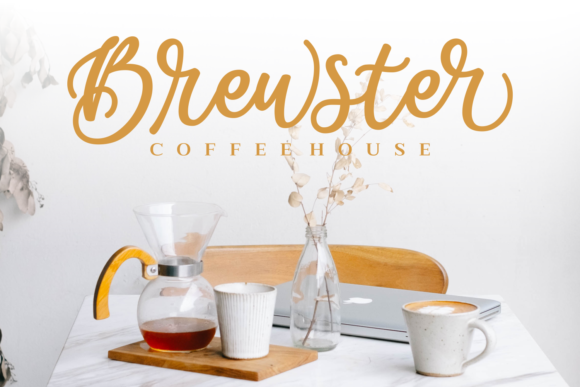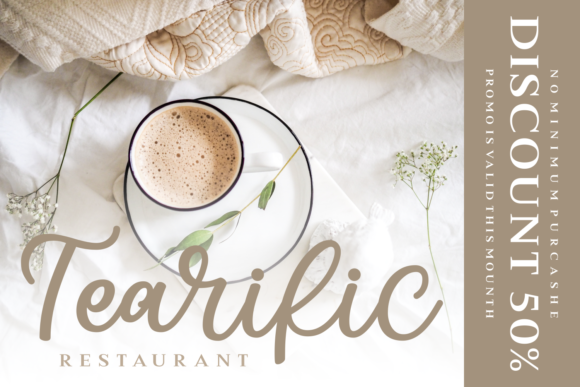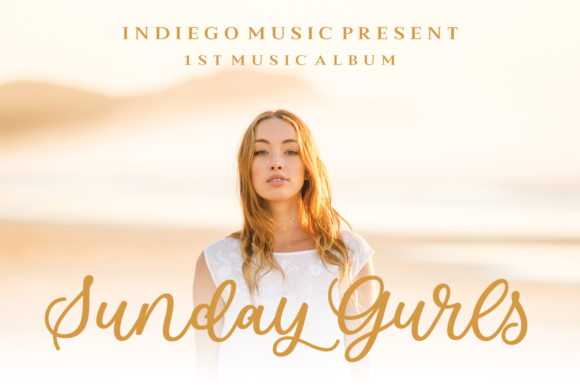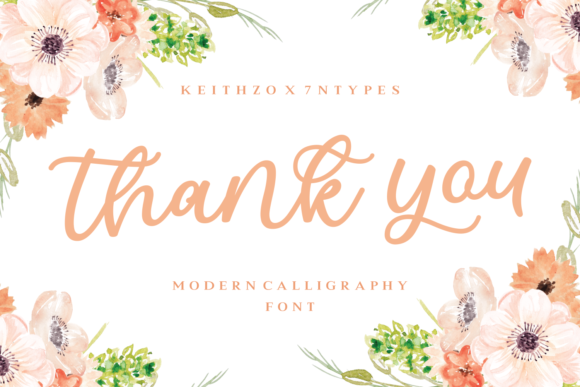
The Elegance of Gibran Font: A Modern Calligraphy Marvel
In the realm of typography, few fonts manage to strike a balance between elegance and readability. The Gibran Font, a modern calligraphy marvel, achieves this delicate balance with finesse. Its beautifully crafted letters exude an air of sophistication while maintaining a high level of legibility. This makes it an ideal choice for designers and crafters looking to add a touch of refinement to their projects.
The Characteristics of Gibran Font
The Gibran Font is characterized by its fluid, cursive script that lends itself well to a variety of design applications. Its letters are meticulously designed to ensure that they are easily readable, even at smaller sizes. This is no small feat, as many calligraphy fonts struggle with legibility due to their intricate and ornate designs.
One of the standout features of the Gibran Font is its beautiful swashes. These decorative flourishes add a feminine yet striking touch to any design. Swashes are a hallmark of calligraphy fonts, and the Gibran Font does not disappoint in this regard. The swashes are thoughtfully designed to complement the letters, enhancing the overall aesthetic appeal of the font.
Versatility and Applications
The Gibran Font’s versatility is one of its most compelling attributes. It can be used in a wide range of design projects, from wedding invitations and branding materials to packaging and digital media. Its elegant style makes it particularly well-suited for projects that require a touch of sophistication and glamour.
For crafters, the Gibran Font offers endless possibilities. Whether you’re creating handmade cards, scrapbooking pages, or custom jewelry, this font can add a unique and personalized touch to your work. Its readability and elegance make it an excellent choice for creating quotes, phrases, and other textual elements that are both visually appealing and easy to understand.
Why Designers Love Gibran Font
Designers appreciate fonts that offer a combination of style, versatility, and functionality. The Gibran Font checks all these boxes and more. Here are a few reasons why designers love this modern calligraphy font:
- Elegant Style: The Gibran Font’s elegant style makes it perfect for projects that require a sophisticated look.
- High Readability: Unlike some calligraphy fonts that sacrifice readability for style, the Gibran Font maintains a high level of legibility.
- Beautiful Swashes: The font’s decorative swashes add a touch of elegance and femininity to any design.
- Versatility: The Gibran Font can be used in a variety of design applications, from print to digital media.
Tips for Using Gibran Font
To get the most out of the Gibran Font, consider the following tips:
- Pair with Simple Fonts: For maximum impact, pair the Gibran Font with simpler fonts to create visual contrast.
- Use for Headings and Titles: The Gibran Font is perfect for headings and titles, where its elegance and style can shine.
- Experiment with Swashes: Don’t be afraid to experiment with the font’s swashes to add a unique touch to your designs.
- Consider the Context: Make sure the Gibran Font aligns with the overall aesthetic and tone of your project.
The Gibran Font is a stunning modern calligraphy font that offers the perfect blend of elegance, readability, and versatility. Its beautifully crafted letters and decorative swashes make it an excellent choice for designers and crafters looking to add a touch of sophistication to their projects. Whether you’re creating wedding invitations, branding materials, or handmade crafts, the Gibran Font is sure to impress.
With its wide range of applications and ease of use, the Gibran Font is a valuable addition to any designer’s toolkit. So why not give it a try and see how it can elevate your designs to new heights of elegance and sophistication?